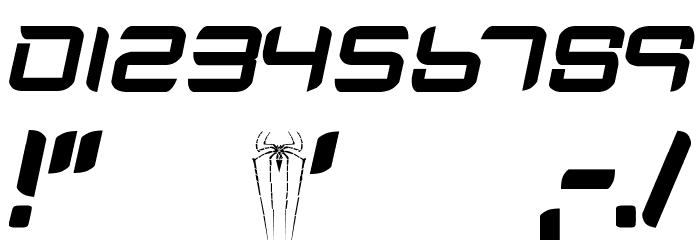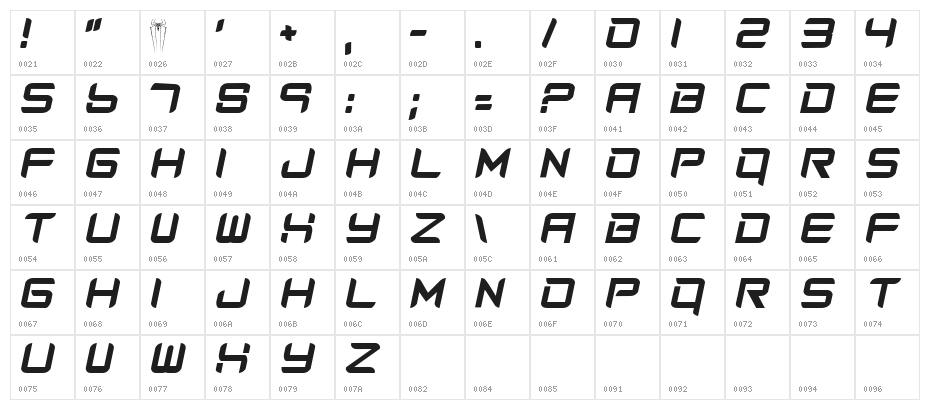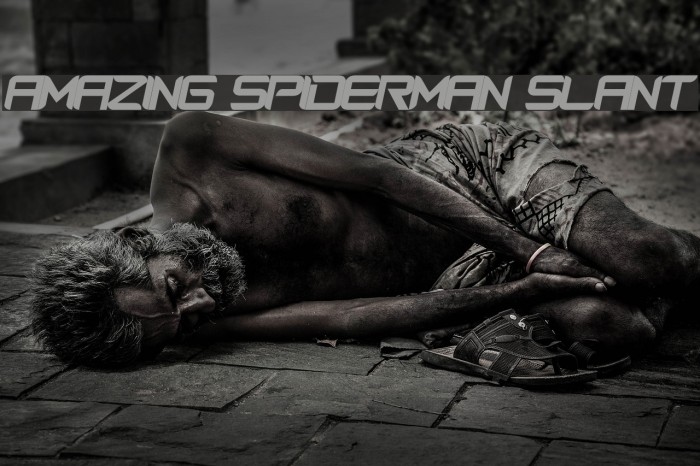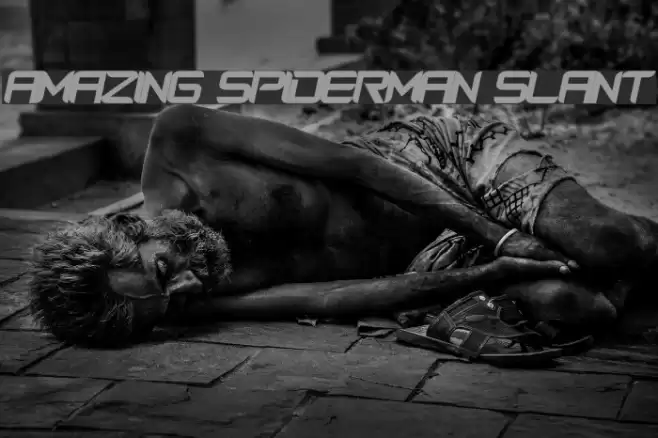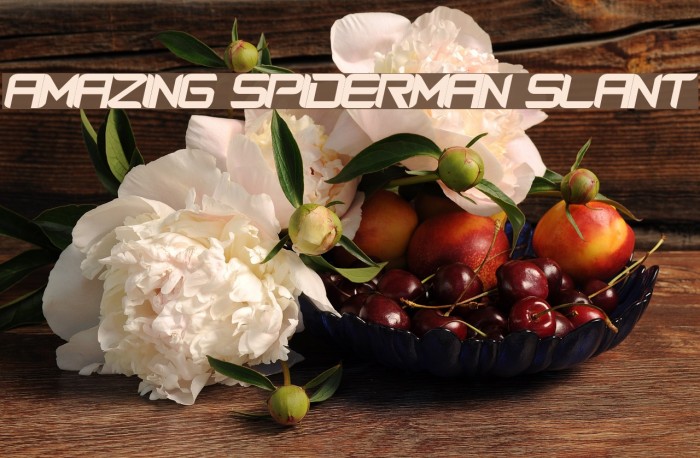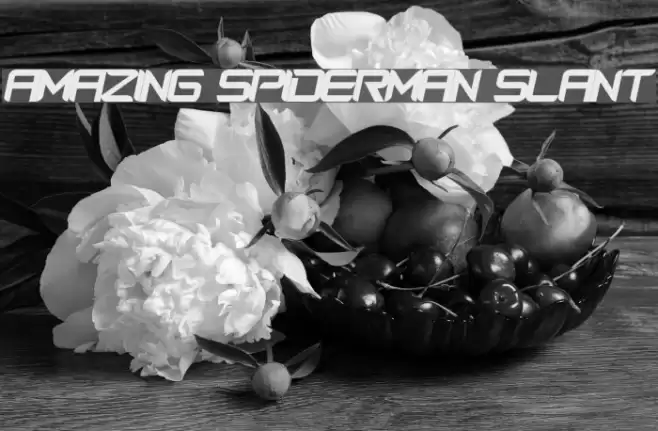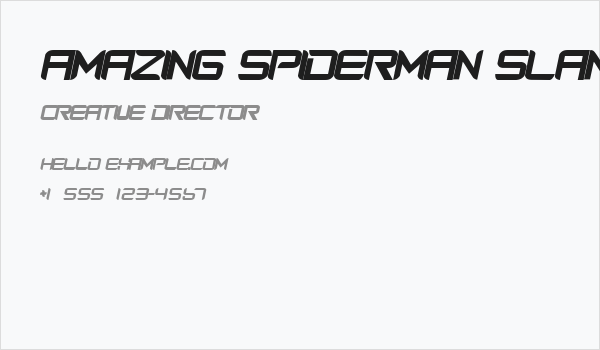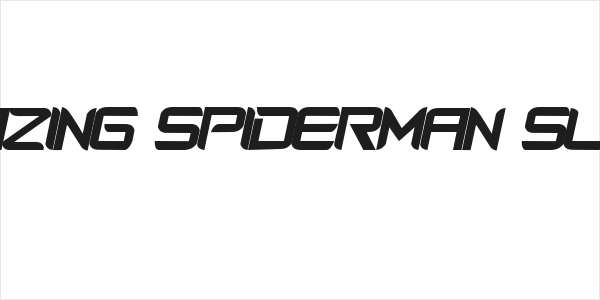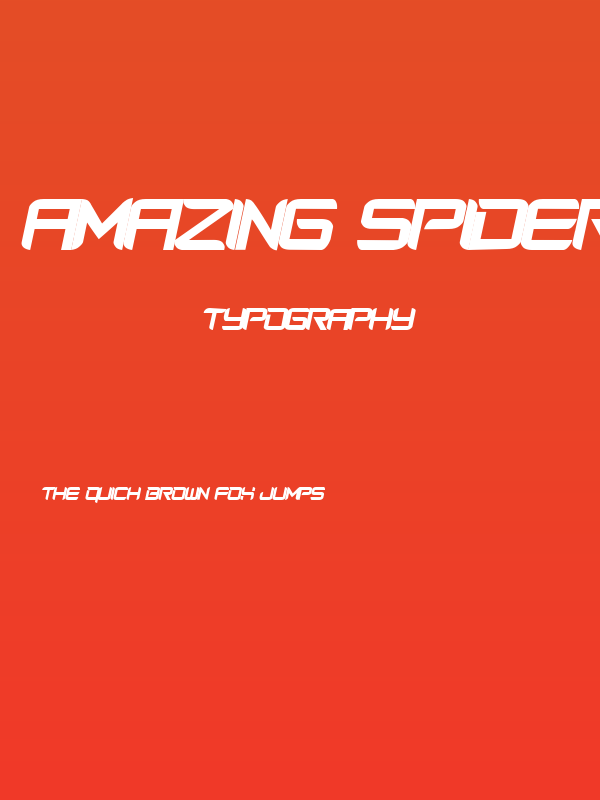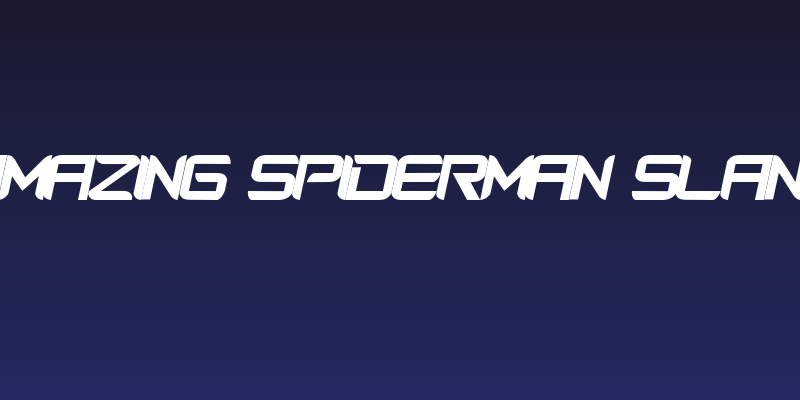
Amazing SpiderMan slant Font
Amazing SpiderMan slant Description
This font features a bold and dynamic design with a strong slant, giving it a sense of motion and energy. The characters are constructed with sharp angles and clean lines, creating a futuristic and edgy appearance. The uppercase and lowercase letters maintain a consistent style, with the lowercase slightly smaller in size but equally impactful. Numbers and special characters follow the same design principles, ensuring uniformity across all elements. The font's unique style makes it stand out, perfect for projects that require a modern and adventurous look.
Proposed ProjectsIdeal for comic book titles, movie posters, video game covers, and branding for tech or entertainment industries.